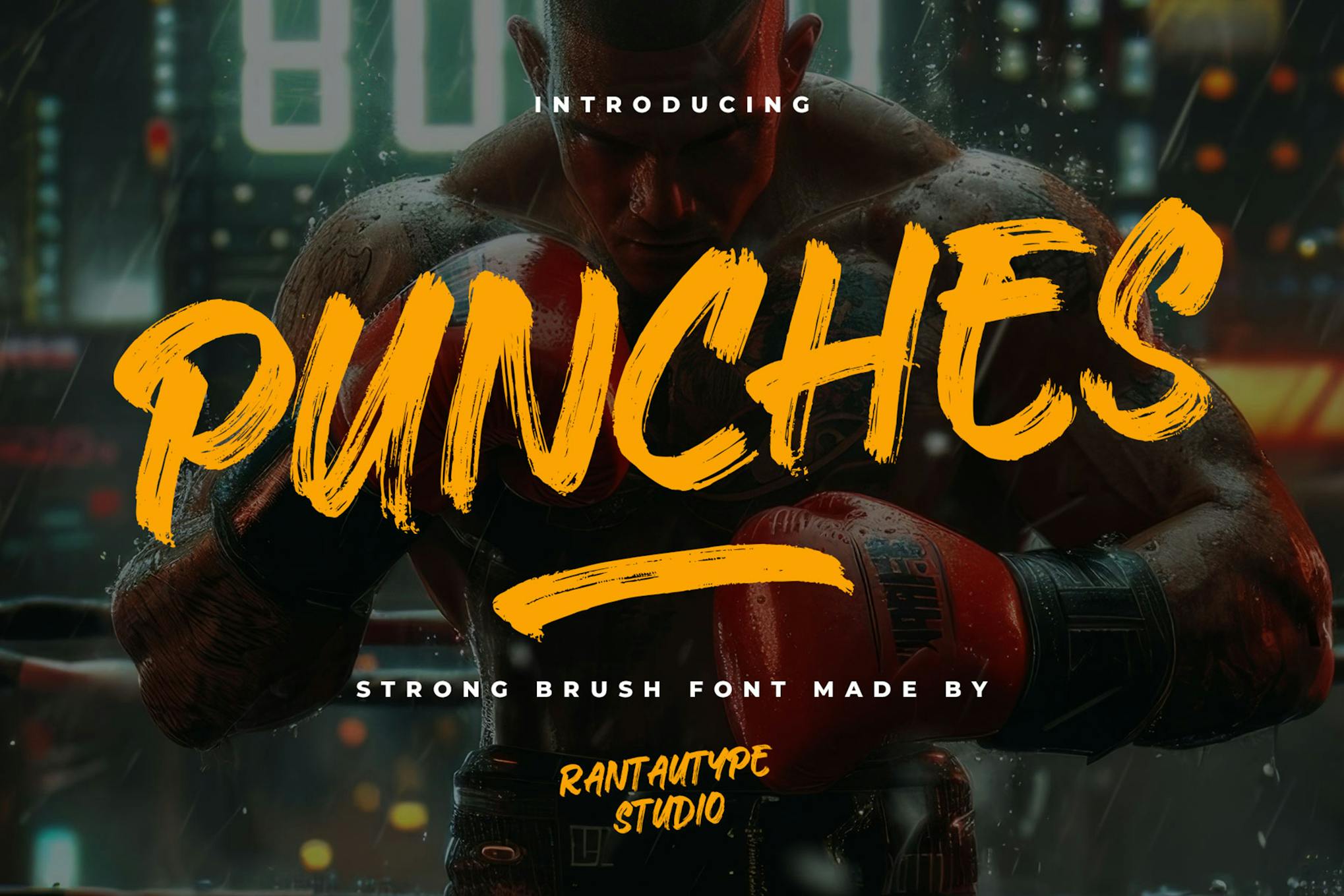
Punches Strong Brush Font is a dynamic typeface designed to make a bold statement in any project. With its expressive brush strokes, this font adds an artistic flair to various designs, enhancing visual appeal. It is versatile enough to suit any size, featuring normal spacing for optimal readability, making it perfect for both print and digital applications.